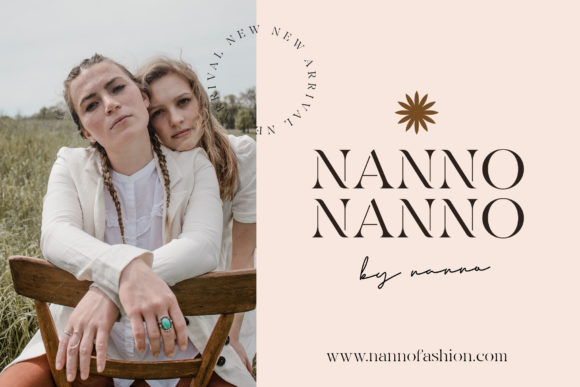
Eiosaka Font: Elevate Your Designs with a Touch of Elegance
In the world of typography, fonts play a crucial role in conveying the tone and personality of a design. When it comes to creating visually stunning and personalized designs, the right font can make all the difference. This is where Eiosaka Font comes in – a beautiful and modern serif font that has been making waves in the design community. In this article, we’ll dive into the world of Eiosaka Font, exploring its features, uses, and benefits, as well as provide tips on how to make the most of this elegant font.
What is Eiosaka Font?
Eiosaka Font is a modern serif font that exudes elegance and sophistication. Its unique design makes it perfect for a wide range of applications, from wedding invitations and thank you cards to logos, greeting cards, and more. With its beautiful and refined lines, Eiosaka Font adds a touch of class to any design, making it an excellent choice for designers looking to create stunning and personalized visuals.
Key Features of Eiosaka Font
So, what sets Eiosaka Font apart from other fonts? Here are some of its key features:
- Modern Serif Design: Eiosaka Font boasts a modern serif design that is both elegant and refined.
- Highly Versatile: This font is perfect for a wide range of designs, including wedding invitations, thank you cards, logos, greeting cards, and more.
- Beautiful Lines: Eiosaka Font features beautiful and refined lines that add a touch of class to any design.
- Easy to Read: Despite its elegant design, Eiosaka Font is easy to read, making it perfect for body text and headlines.
Uses of Eiosaka Font
Eiosaka Font is an incredibly versatile font that can be used in a variety of designs. Here are some of the most popular uses of this beautiful font:
- Wedding Invitations: Eiosaka Font is perfect for wedding invitations, adding a touch of elegance and sophistication to your wedding stationery.
- Thank You Cards: This font is also great for thank you cards, allowing you to express your gratitude in style.
- Logos: Eiosaka Font can be used to create stunning logos that reflect the personality and values of your brand.
- Greeting Cards: Whether it’s a birthday, anniversary, or holiday greeting card, Eiosaka Font is an excellent choice.
- Packaging Design: This font can also be used in packaging design, adding a touch of elegance to your product packaging.
Benefits of Using Eiosaka Font
So, why should you choose Eiosaka Font for your designs? Here are some of the benefits of using this beautiful font:
- Unique and Elegant Design: Eiosaka Font features a unique and elegant design that sets it apart from other fonts.
- Highly Versatile: This font is perfect for a wide range of designs, making it a great addition to your font library.
- Easy to Read: Eiosaka Font is easy to read, making it perfect for body text and headlines.
- Time-Saving: With Eiosaka Font, you can create stunning designs in no time, saving you time and effort.
Tips for Using Eiosaka Font
Here are some tips for using Eiosaka Font to get the most out of this beautiful font:
- Pair it with Other Fonts: Eiosaka Font looks great when paired with other fonts, so don’t be afraid to experiment with different font combinations.
- Use it for Headlines and Body Text: This font is perfect for both headlines and body text, making it a great choice for a wide range of designs.
- Experiment with Different Colors: Eiosaka Font looks great in a variety of colors, so don’t be afraid to experiment with different color schemes.
- Pay Attention to Kerning: As with any font, pay attention to kerning to ensure that your text looks professional and polished.
Eiosaka Font is a beautiful and modern serif font that is perfect for a wide range of designs. With its elegant design, versatility, and ease of use, this font is an excellent choice for designers looking to create stunning and personalized visuals. Whether you’re creating wedding invitations, logos, or greeting cards, Eiosaka Font is sure to elevate your designs to the next level.
- What is Eiosaka Font?: Eiosaka Font is a modern serif font that features a beautiful and elegant design.
- What is Eiosaka Font used for?: Eiosaka Font is perfect for a wide range of designs, including wedding invitations, thank you cards, logos, greeting cards, and more.
- Is Eiosaka Font easy to read?: Yes, Eiosaka Font is easy to read, making it perfect for body text and headlines.